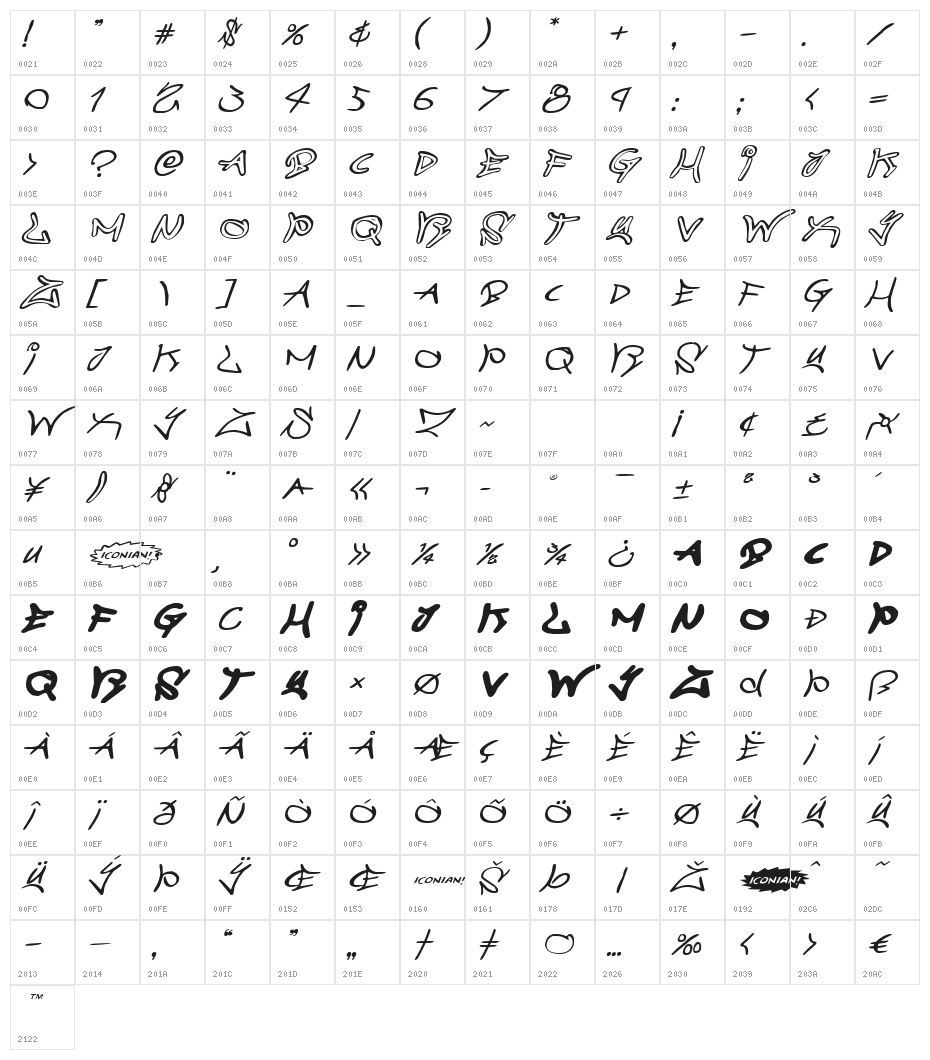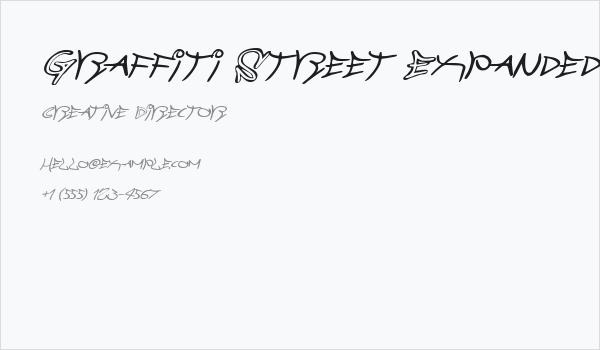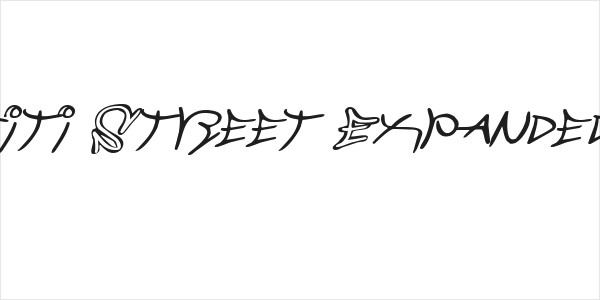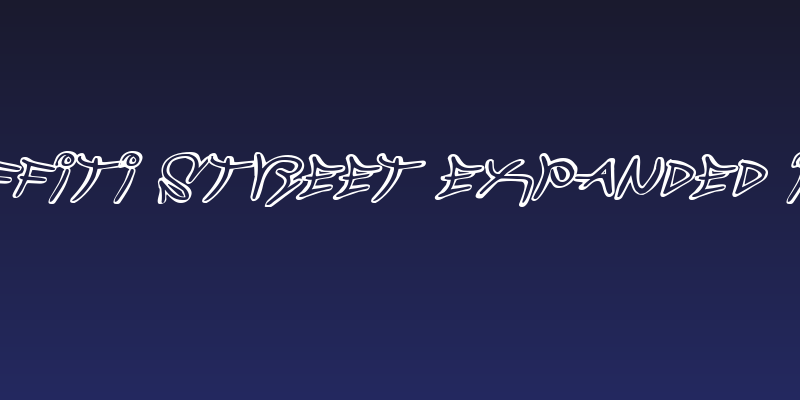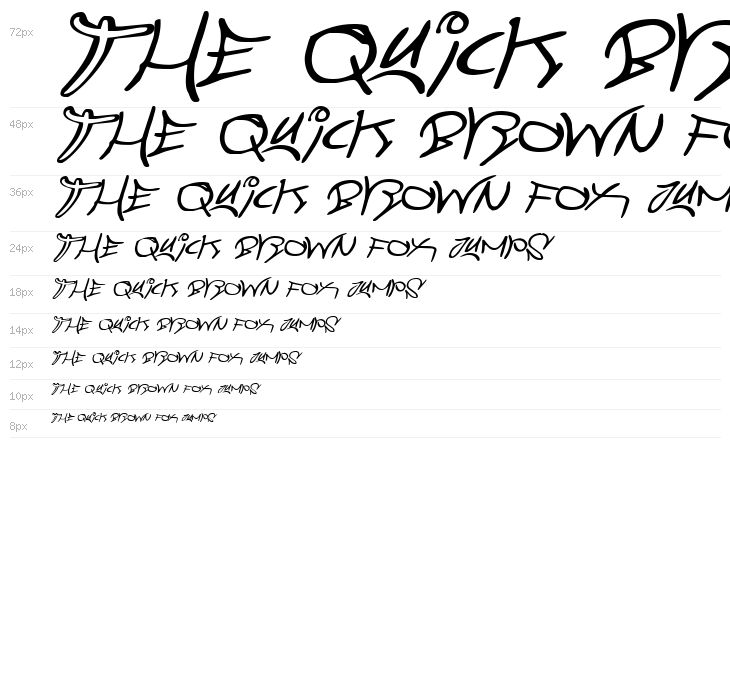
Graffiti Street Expanded Italic Font
Graffiti Street Expanded Italic Description
This font exhibits a dynamic and energetic style, reminiscent of urban graffiti art. The characters are bold and expanded, with a noticeable slant that adds to the sense of movement and flair. The strokes are thick and fluid, creating a sense of spontaneity and creativity. The uppercase and lowercase letters maintain a consistent style, with exaggerated curves and angles that give the font a unique and rebellious character. The numbers and special characters follow the same aesthetic, ensuring a cohesive look across all elements.
| Overall Style | Modern, Urban, Energetic |
| Use Case | Logos, Posters, Album Covers |
| Proposed Projects | Ideal for street art-inspired designs, music album covers, urban-themed posters, and edgy branding projects. |